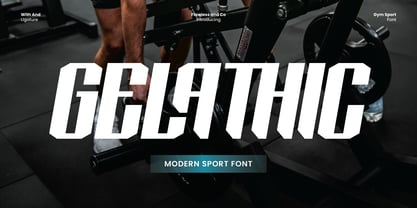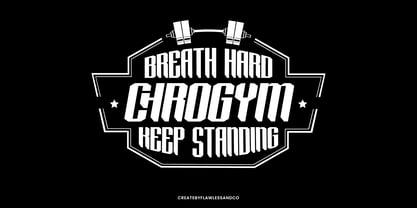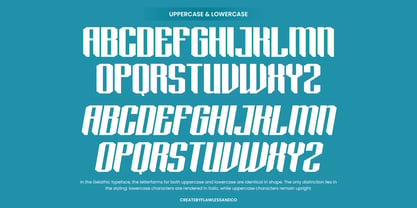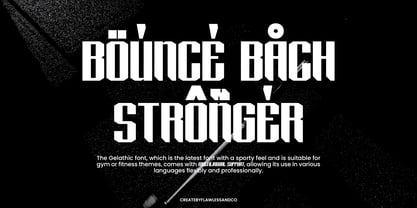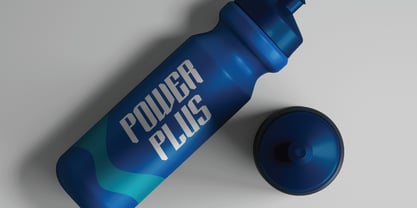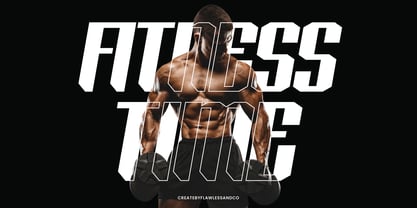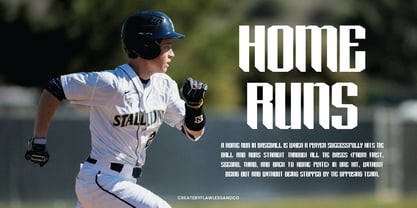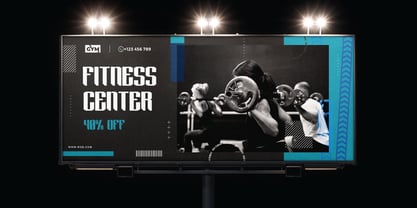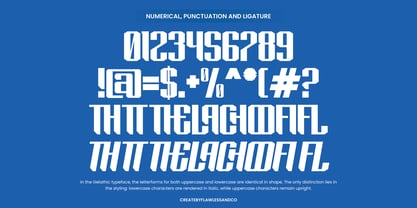
Gelathic
Gelathic a modern sport font built to dominate. Bold, strong, and sharp-edged, this font channels power and precision in every letter. With striking angular forms and aggressive attitude, Gelathic is made for gym branding, energy drink labels, activewear logos, and fitness campaigns that push limits. Gelathic brings a fresh take on athletic typography – complete with ligatures, clean alignment, and unstoppable visual energy.
Features :
Multilingual, Uppercase alphabet A-Z, Lowercase alphabet a-z, Numbers 0-9, Some punctuation, Alternates & Ligatures